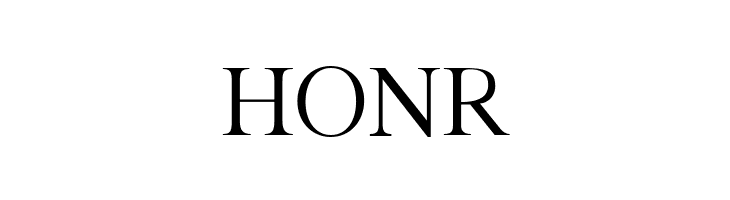
Bach Font
This font exhibits a classic and elegant serif style, characterized by its refined and sophisticated appearance. The letters are well-proportioned with distinct serifs that add a touch of formality and tradition. The uppercase letters are bold and commanding, while the lowercase letters maintain a graceful and fluid form. The numerals are clear and easy to read, complementing the overall aesthetic. Special characters are designed with the same attention to detail, ensuring consistency across all glyphs. This font is suitable for projects that require a touch of elegance and timelessness.
A classic serif font with elegant and refined characteristics.
- Font: Bach
- Proposed Projects: Ideal for book covers, formal invitations, branding for luxury products, and editorial design.
- Category: Serif
- Overall Style: Classic